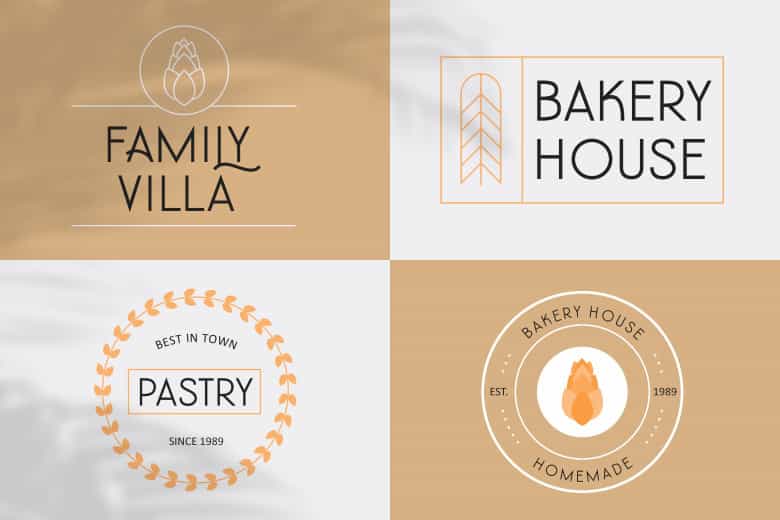
Funwork is an elegant Sans Serif font, boasting a clean and geometric style perfect for letterheads, titles and stationary designs. Its perfect legibility, clean lines and legible font are also suitable for branding brochures greeting cards posters quotes stationary designs blog headers among many other applications.